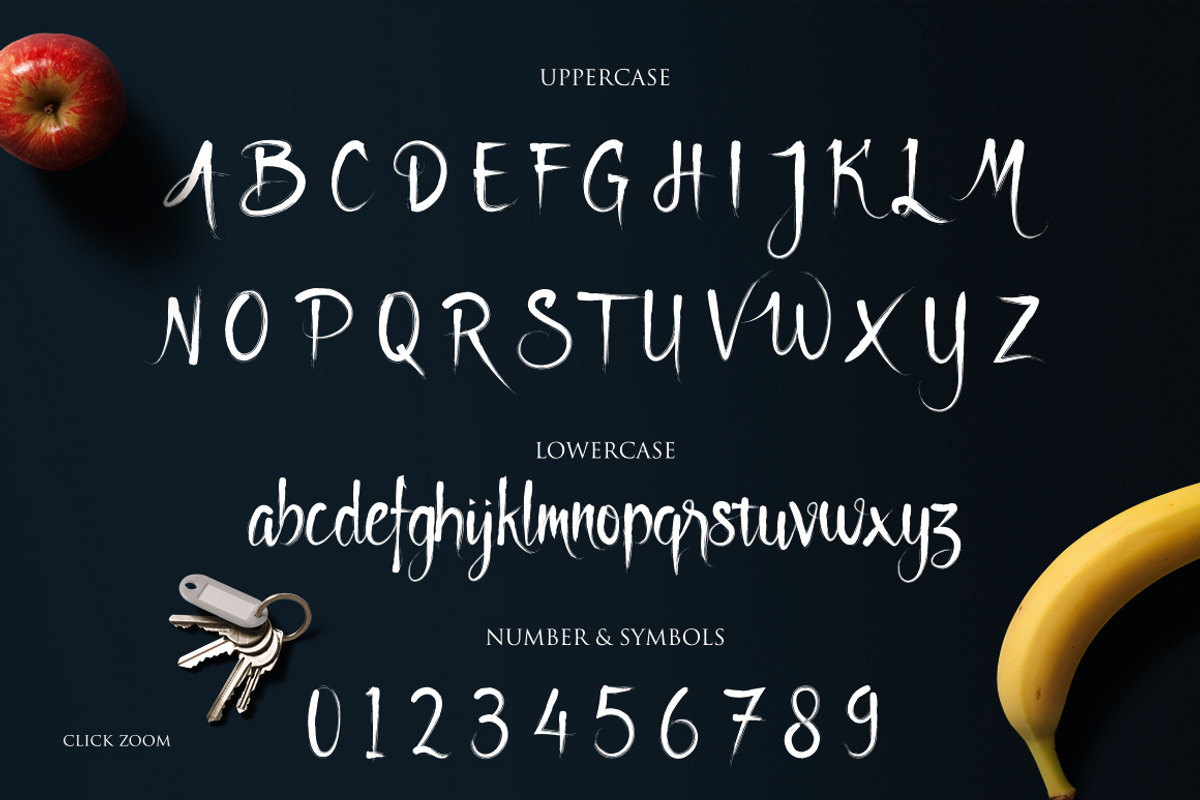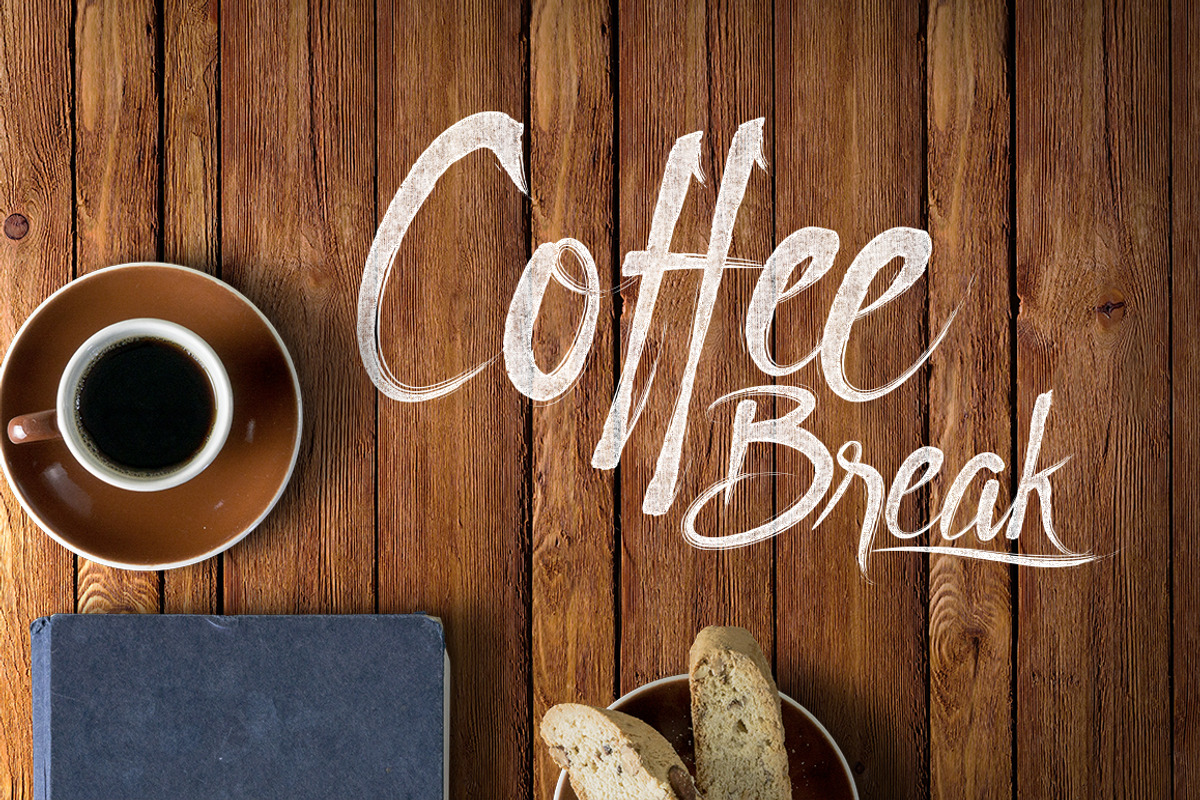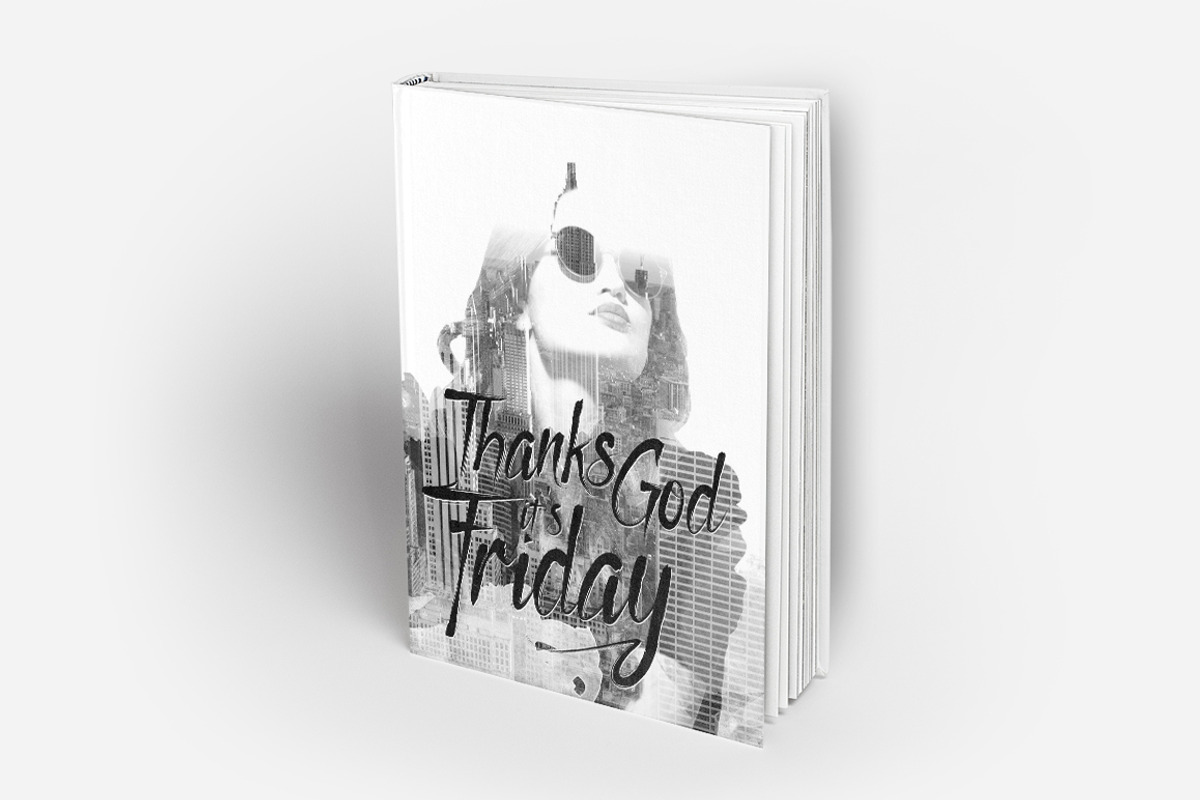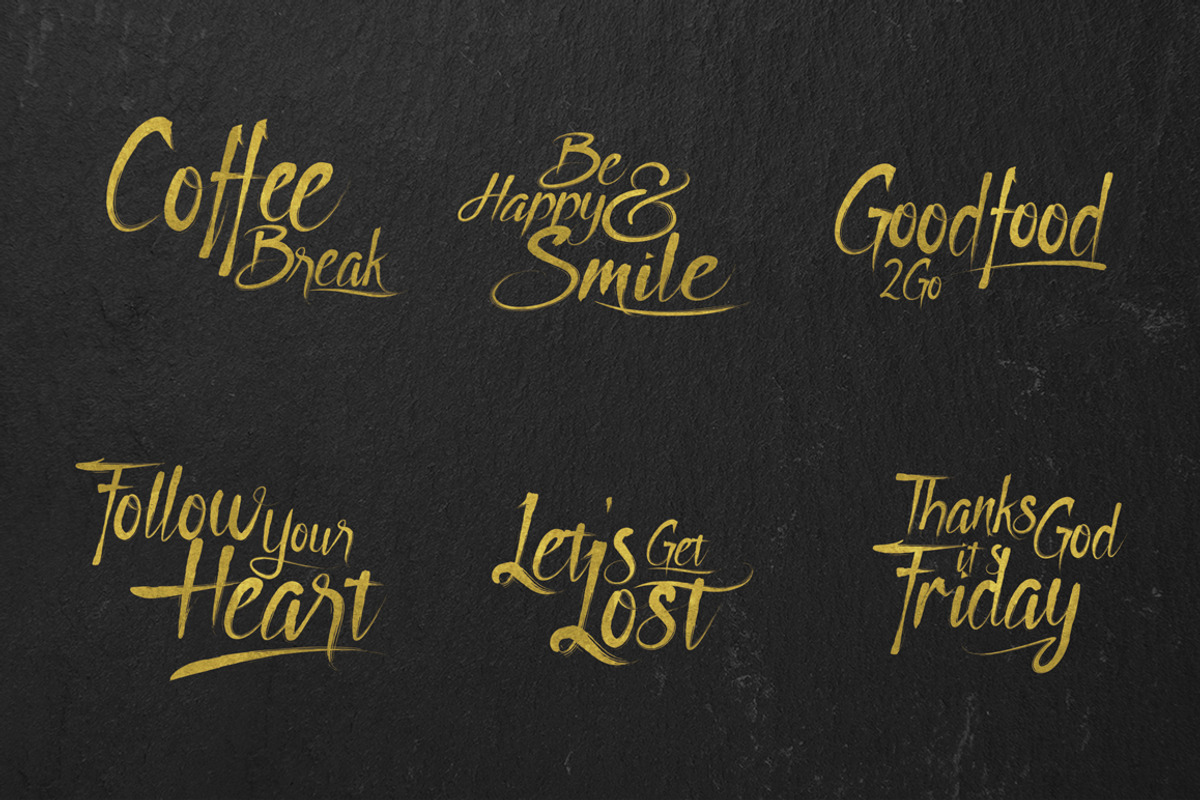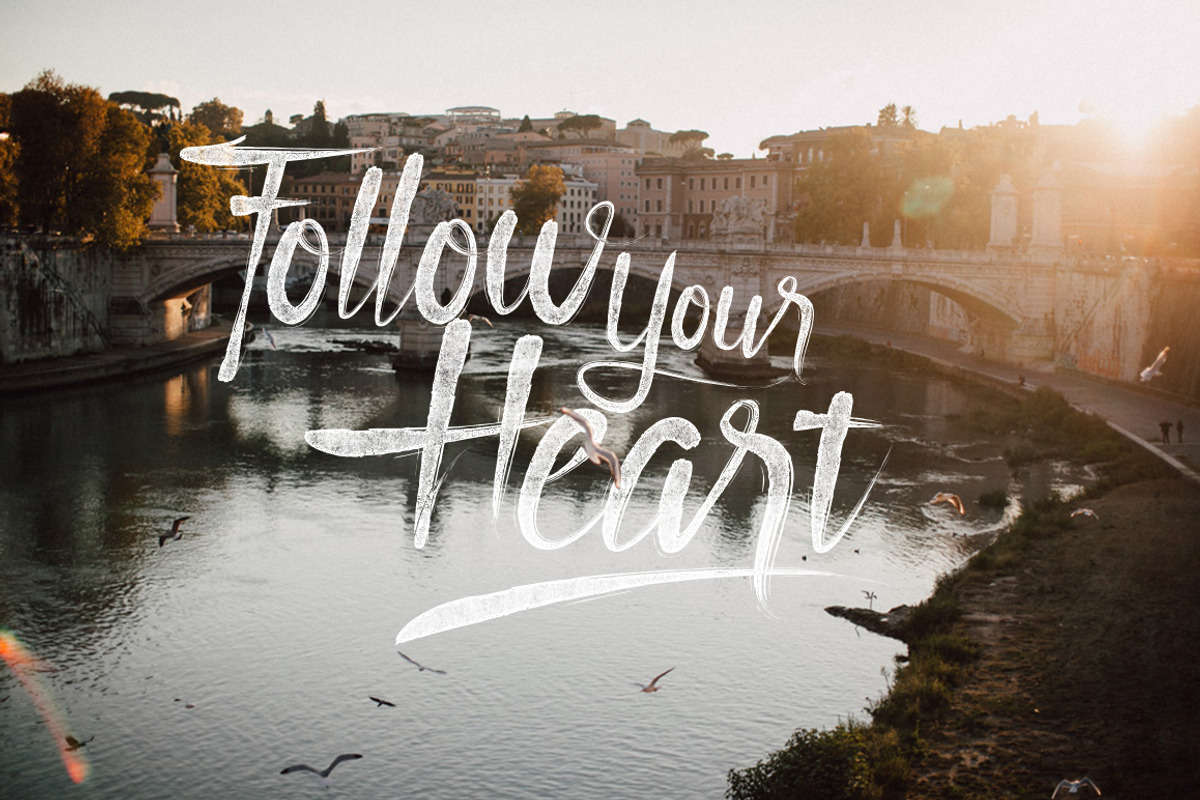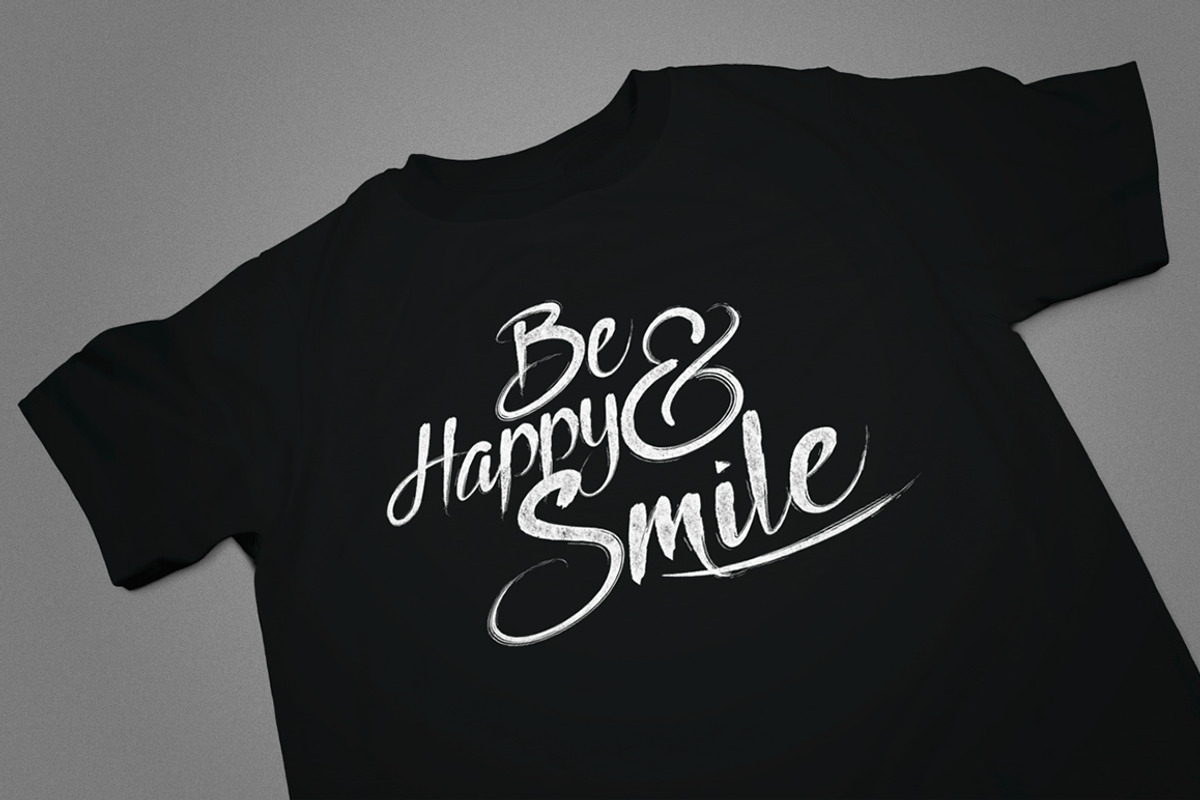
Godfeem Font
Godfeem Font by alit design is a font selected for branding, posters, packaging, typography.
- Not only that, you also get italic character of this font beside regular character with in this font package.
Why Godfeem Font is worth a look
Godfeem Font by alit design fits naturally into Branding, posters, packaging, typography.